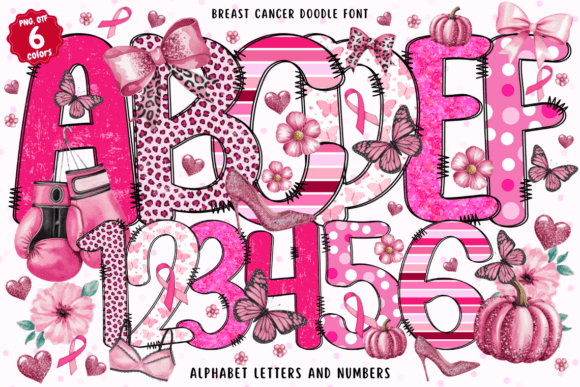
Introduction to Breast Cancer Doodle Font
Featuring delicate doodles and ribbon motifs, this font is perfect for creating awareness posters, fundraising materials, or adding a special touch to events centered around breast cancer awareness.
Whether for school projects, community events, or personal creative works, this font helps spread a message of hope, strength, and solidarity Use it to inspire and uplift, showing support for the cause in a meaningful and artistic way.
Key Features of Breast Cancer Doodle Font
Why Choose Breast Cancer Doodle Font?
Breast Cancer Doodle Font offers exceptional quality and versatility, making it a valuable addition to your design toolkit. Whether you’re creating for personal projects or commercial use, Breast Cancer Doodle Font delivers professional results.